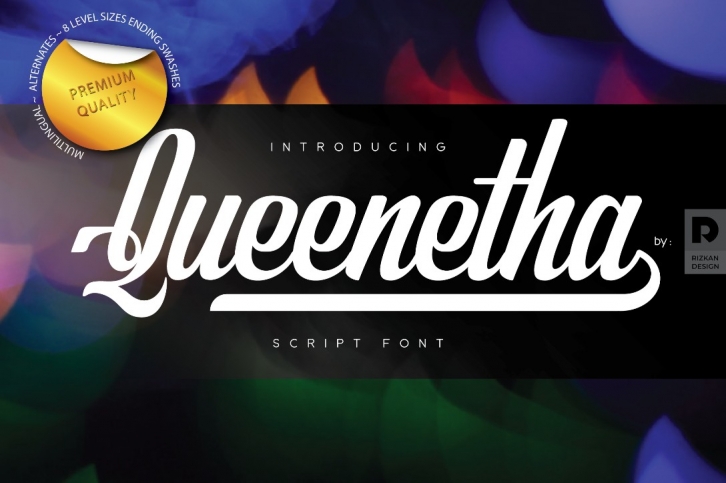
Queenetha is a great font that was designed by Creativeun. Imagine the amount of combinations you can create using this font! The archive is 12.1 MB and it was released on October 4, 2019. Queenetha looks beautiful on wedding invitations, greeting cards, logos, posters, labels, t-shirt designs, logos, business cards and is perfect for use in ink or watercolor works, fashion, magazines, packaging and food menus, children's books and more!